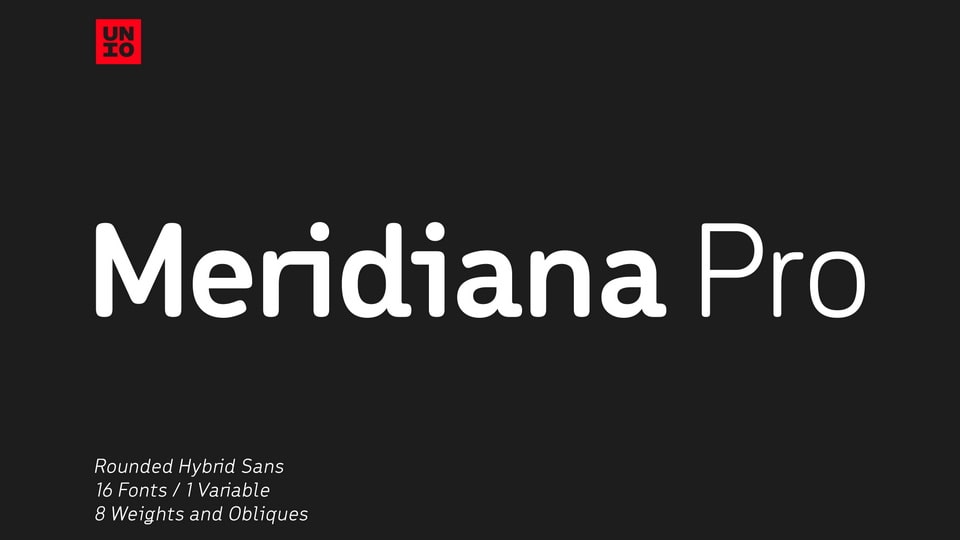
Download Meridiana Pro font, a sans serif typeface, an amalgamation between a rounded sans and a monospaced font in order to obtain an extensive and usable variable type-system. Meridiana Pro typeface encapsulates a symmetrical and balanced rhythm due to the unique blend of different sources of inspiration.
Designer: Unio Creative Solutions